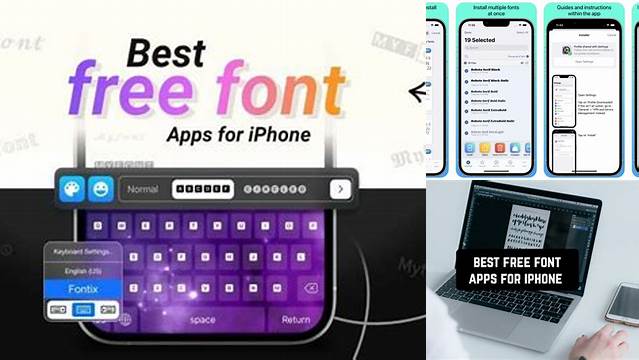
Best Free Font Apps For IPhone: Top Picks
Hey guys! Ever feel like your iPhone's font options are a little...blah? You're not alone! Sometimes a fresh font can totally transform your notes, social media posts, and even your overall phone vibe. The good news is, there are tons of amazing and free font apps out there for your iPhone. Let's dive into some of the best free font apps for iPhone to spice up your digital life.
1. Cool Fonts for iPhone
Cool Fonts for iPhone stands out as a top contender in the realm of font customization apps. With a vast library of unique and stylish fonts, this app empowers users to express their individuality across various platforms, including social media, messaging apps, and creative projects. The user-friendly interface makes browsing and selecting fonts a breeze, even for those who are new to font customization. Whether you're looking to add a touch of elegance, playfulness, or edginess to your text, Cool Fonts offers a diverse range of options to suit your preferences. Beyond just fonts, the app often includes additional features such as symbol libraries and decorative elements, further enhancing creative possibilities. Imagine the impact you can make on your Instagram stories or TikTok videos with the perfect font that captures your personality! Cool Fonts regularly updates its font collection, ensuring that users always have access to the latest trends and styles in typography. It also typically integrates seamlessly with your iPhone's keyboard, allowing you to easily switch between different fonts while typing in any app. Cool Fonts is not only about aesthetics; it's also about functionality and ease of use. The app usually offers clear previews of how each font will look, preventing any guesswork and ensuring that you select the perfect font for your specific needs. By experimenting with different fonts, you can revitalize your digital communication and make your messages truly stand out. Cool Fonts is a must-have app for anyone looking to add a personal touch to their iPhone experience.
2. Font Changer Apps for iPhone
Font changer apps for iPhone are a game-changer for those who crave personalization. These apps offer a diverse array of fonts, enabling you to transform the appearance of text across various applications, from social media platforms to messaging apps and creative design tools. The ability to change fonts can significantly enhance the aesthetic appeal of your digital content, making it more engaging and reflective of your personal style. Think about how a simple change in font can elevate your Instagram captions or create a more polished look for your presentations. Font changer apps often come with user-friendly interfaces, making it easy to browse and select fonts that suit your specific needs. Many apps also include features such as font previews, allowing you to see exactly how a font will look before you apply it. This is particularly useful for ensuring that the font you choose is legible and fits the overall tone of your message. In addition to a wide selection of fonts, some font changer apps offer customization options such as adjusting font size, color, and spacing. This level of control allows you to fine-tune your text and create a truly unique look. Font changer apps are not just about aesthetics; they can also improve readability. Certain fonts are better suited for certain purposes, and having the ability to choose the right font can make your text more accessible and enjoyable to read. Font changer apps open up a world of possibilities for creative expression on your iPhone. Whether you're a student taking notes, a professional creating presentations, or a social media enthusiast sharing updates, these apps can help you communicate your message with style and clarity. Experimenting with different fonts can be a fun and effective way to inject personality into your digital communications.
3. Best Keyboard Fonts for iPhone
The best keyboard fonts for iPhone can dramatically enhance your typing experience, adding a personal touch to every message, email, and social media post you create. The default keyboard font on the iPhone is functional but can sometimes feel a bit bland. By installing a custom keyboard font, you can inject your personality and style into your daily communications. Imagine sending a text message with a playful, handwritten-style font or composing an email with a sleek, professional-looking typeface. The possibilities are endless. When choosing the best keyboard fonts for your iPhone, consider factors such as readability and compatibility. While a fancy font might look great, it's important to ensure that it's easy to read, especially in smaller sizes. Compatibility is also crucial; you'll want to choose a font that works seamlessly with your favorite apps and doesn't cause any display issues. Many font apps offer a wide range of keyboard font options, from elegant serifs to modern sans-serifs, and even decorative and novelty fonts. Some apps also allow you to customize the size, color, and style of your keyboard font, giving you even more control over its appearance. The best keyboard fonts not only look good but also feel good to type with. A well-designed font can improve the overall typing experience, making it more comfortable and efficient. By using a font that you find visually appealing, you can make typing a more enjoyable task. Keyboard fonts are an often-overlooked aspect of iPhone customization, but they can have a significant impact on your daily digital interactions. Upgrading your keyboard font is a simple yet effective way to personalize your iPhone and express your unique style. So, take some time to explore the various font options available and find the perfect font to suit your taste and needs.
4. Free Fonts for Instagram on iPhone
Free fonts for Instagram on iPhone are essential tools for anyone looking to elevate their social media presence. Instagram is a highly visual platform, and the fonts you use in your captions, stories, and bio can significantly impact how your content is perceived. Using a unique and eye-catching font can help you stand out from the crowd, attract attention, and convey your brand’s personality. The default fonts offered by Instagram are limited, but fortunately, there are numerous free apps available that provide a vast array of font options. These apps allow you to create custom text styles that you can then copy and paste into your Instagram posts. Imagine using a bold and playful font for a casual post or an elegant and sophisticated font for a professional announcement. The right font can enhance the message you're trying to convey and make your content more engaging. When selecting free fonts for Instagram, consider the overall aesthetic you're aiming for. A consistent font style across your posts can help create a cohesive and professional look for your profile. Think about your brand's identity and choose fonts that align with your values and style. For example, if you run a creative business, you might opt for a handwritten or artistic font. If you're a minimalist, a clean and modern font might be more appropriate. Free fonts for Instagram are not just about aesthetics; they can also improve the readability of your posts. A well-chosen font can make your captions easier to read, especially on smaller screens. Look for fonts that are clear, legible, and appropriate for the length of your text. With the help of free font apps, you can transform your Instagram feed and stories into visually appealing masterpieces. Experiment with different fonts to see what works best for your content and brand. By using unique and stylish fonts, you can capture your audience's attention and make a lasting impression.
6. Stylish Fonts for iPhone Free
Stylish fonts for iPhone free are a game-changer when it comes to personalizing your digital communication. With the plethora of free font apps available on the App Store, you can easily transform the look and feel of your text across various platforms, including social media, messaging apps, and email. The ability to access stylish fonts without spending any money opens up a world of creative possibilities for iPhone users. Imagine crafting Instagram captions with a playful handwritten font, designing eye-catching graphics with a bold sans-serif, or sending heartfelt messages with an elegant script. The right font can enhance the tone and impact of your words, making your communications more engaging and expressive. Many free font apps offer a diverse selection of styles, ranging from classic and sophisticated to modern and whimsical. You can find fonts that mimic calligraphy, fonts with unique geometric shapes, and even fonts that incorporate decorative elements. Exploring these options allows you to discover the perfect font for any occasion or mood. Stylish fonts are not just about aesthetics; they can also improve readability. A well-chosen font can make your text easier to read, especially on smaller screens. Consider factors such as letter spacing, kerning, and contrast when selecting a font for readability. Free font apps often include features that allow you to preview fonts before you install them. This helps you see how a font will look in different contexts and ensures that you choose one that suits your needs. In addition to individual fonts, some apps offer pre-designed font combinations that you can use to create a cohesive and stylish look across your communications. This can save you time and effort when you're trying to create a consistent brand image or aesthetic. Stylish fonts for iPhone offer a simple yet effective way to elevate your digital presence. By experimenting with different fonts, you can add personality, flair, and sophistication to your messages and content.
7. Best Fonts for Notes App on iPhone
The best fonts for the Notes app on iPhone can significantly enhance your note-taking experience. The default font in the Notes app is functional, but it may not always be the most visually appealing or easy to read for everyone. Choosing the right font can improve readability, reduce eye strain, and make your notes more organized and enjoyable to review. When selecting fonts for the Notes app, consider factors such as legibility, style, and the overall tone you want to convey. A clean and clear font is essential for easy reading, especially for long notes or detailed information. Fonts with good spacing and distinct letterforms can help prevent eye fatigue and make it easier to scan through your notes quickly. Style is also an important consideration. The font you choose can reflect your personality or the purpose of your notes. For professional notes, a classic serif or sans-serif font might be appropriate. For personal notes or brainstorming sessions, you might prefer a more casual or creative font. Some people find that handwritten-style fonts add a personal touch and make their notes feel more engaging. The best fonts for the Notes app are those that strike a balance between functionality and aesthetics. They should be easy to read and visually appealing, helping you stay focused and motivated while taking notes. Experimenting with different fonts can help you find the perfect one for your needs. Try out a few different options and see which ones you find most comfortable to read and write with. You might also consider using different fonts for different types of notes. For example, you could use a bold font for headings and subheadings and a more subtle font for the body text. This can help you organize your notes and make them easier to navigate. Font customization in the Notes app is a simple yet effective way to personalize your iPhone and make it work better for you. By choosing the right font, you can enhance your note-taking experience and make your notes more useful and enjoyable.
8. Free Fonts for Texting on iPhone
Free fonts for texting on iPhone can add a fun and personal touch to your messages. While the default font in the Messages app is perfectly functional, it can sometimes feel a bit bland. Using a custom font allows you to express your personality and make your texts stand out. With the wide variety of free font apps available on the App Store, you can easily find the perfect font to match your style. When choosing free fonts for texting, it's important to consider readability. A font might look stylish, but if it's difficult to read, it won't be effective for communication. Look for fonts that are clear, well-spaced, and easy to decipher, even on a small screen. It's also a good idea to choose fonts that are compatible with the messaging app you're using. Some apps may not support all fonts, so it's best to test out a few different options to ensure they display correctly. Many font apps offer a preview feature that allows you to see how a font will look in a text message before you install it. This can help you avoid any surprises and make sure you choose a font that you'll be happy with. Free fonts for texting are not just about aesthetics; they can also convey emotion. A playful font can add a lighthearted touch to your messages, while a more elegant font can make your texts feel more formal. The font you choose can help you communicate your tone and intent more effectively. Experimenting with different fonts is a fun way to express yourself and add some personality to your text messages. Try out a few different styles and see what resonates with you. You might even consider using different fonts for different contacts or conversations. With the availability of free font apps, personalizing your text messages has never been easier. By choosing the right font, you can make your texts more engaging, expressive, and enjoyable to read.
9. Best App to Change Font on iPhone Free
The best app to change font on iPhone free can be a game-changer for personalizing your device. While iPhones offer some basic font options, they can be limited. A dedicated font app unlocks a world of possibilities, allowing you to customize the look and feel of your text across various applications. When searching for the best app to change font on your iPhone, several factors come into play. Consider the variety of fonts offered, the ease of use, and the app's compatibility with different platforms and applications. A good font app should have a wide selection of fonts, ranging from classic styles to modern designs, ensuring you can find the perfect font for any occasion. The app should also be user-friendly, with a clear and intuitive interface that makes it easy to browse, preview, and install fonts. Compatibility is crucial; the app should work seamlessly with your favorite apps, including social media platforms, messaging apps, and note-taking apps. Some of the top font apps for iPhone offer additional features, such as font generators, which allow you to create custom fonts based on your preferences. Others include keyboard extensions that make it easy to switch between different fonts while typing. When downloading a font app, it's important to choose one from a reputable source to protect your device from malware and other security threats. Look for apps with positive reviews and high ratings in the App Store. It's also a good idea to read the app's privacy policy to understand how your data is being used. The best app to change font on iPhone should not only offer a wide selection of fonts but also provide a seamless and secure experience. By choosing the right app, you can transform the look and feel of your iPhone and express your unique style. With so many free options available, there's no reason to settle for the default fonts. Explore the different apps and find the one that best suits your needs and preferences.
10. How to Change Fonts on iPhone for Free
Learning how to change fonts on iPhone for free is a simple way to personalize your device and express your style. While Apple provides limited font customization options within the system settings, there are numerous free apps available on the App Store that offer a wider variety of fonts. These apps allow you to change the fonts used in various applications, including social media, messaging apps, and note-taking apps. The process of changing fonts on your iPhone typically involves downloading a font app, browsing through the available fonts, and installing the ones you like. Many font apps include keyboard extensions that make it easy to switch between different fonts while typing. To start, search for